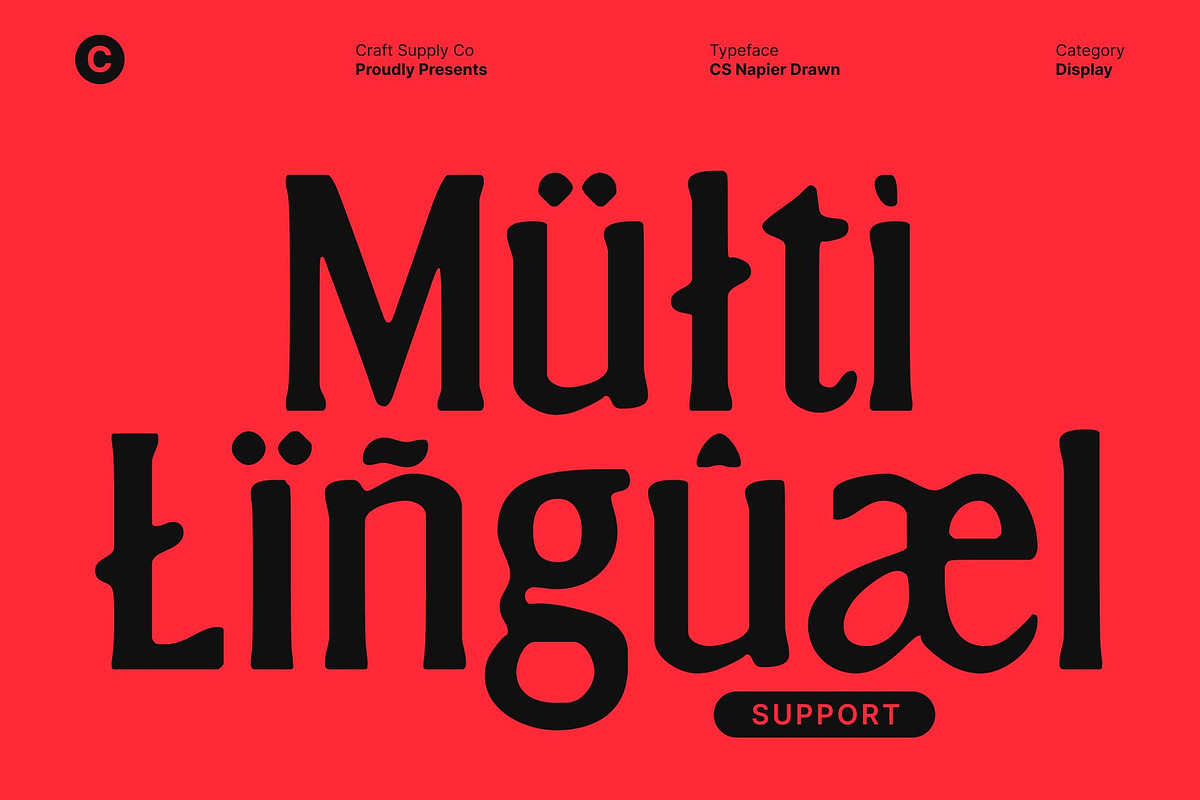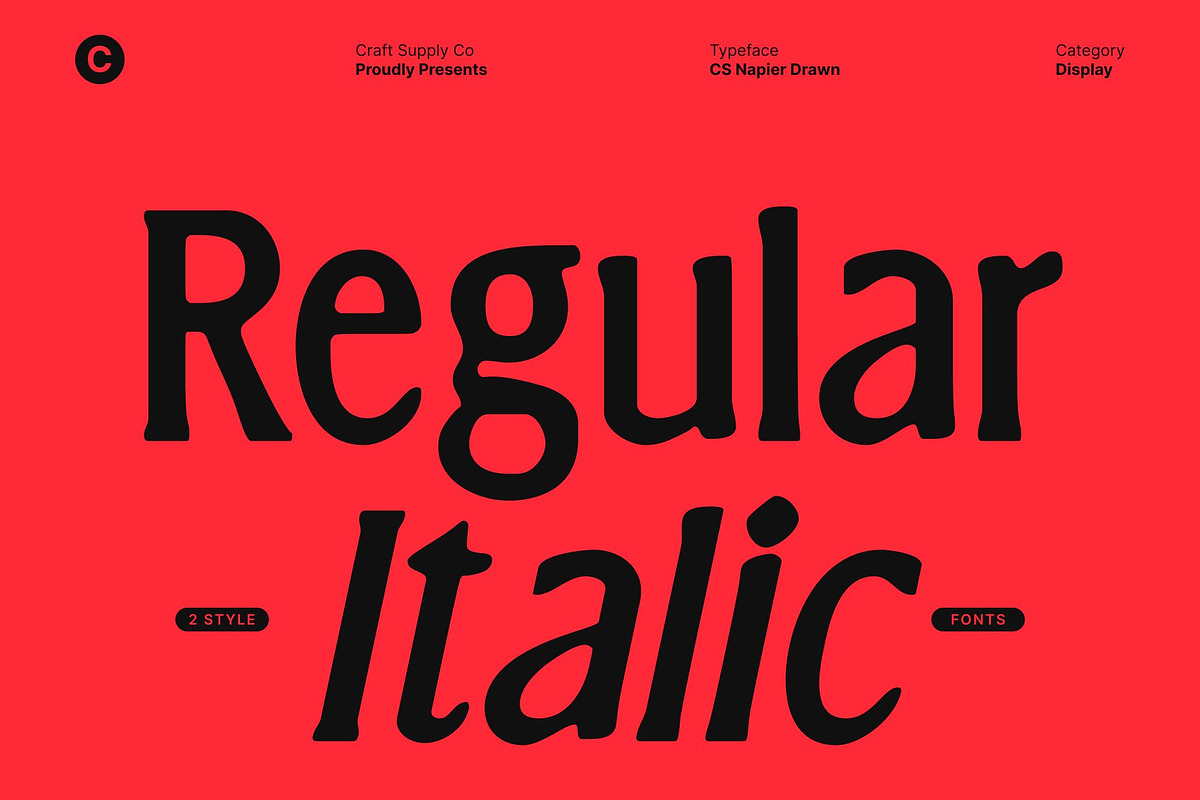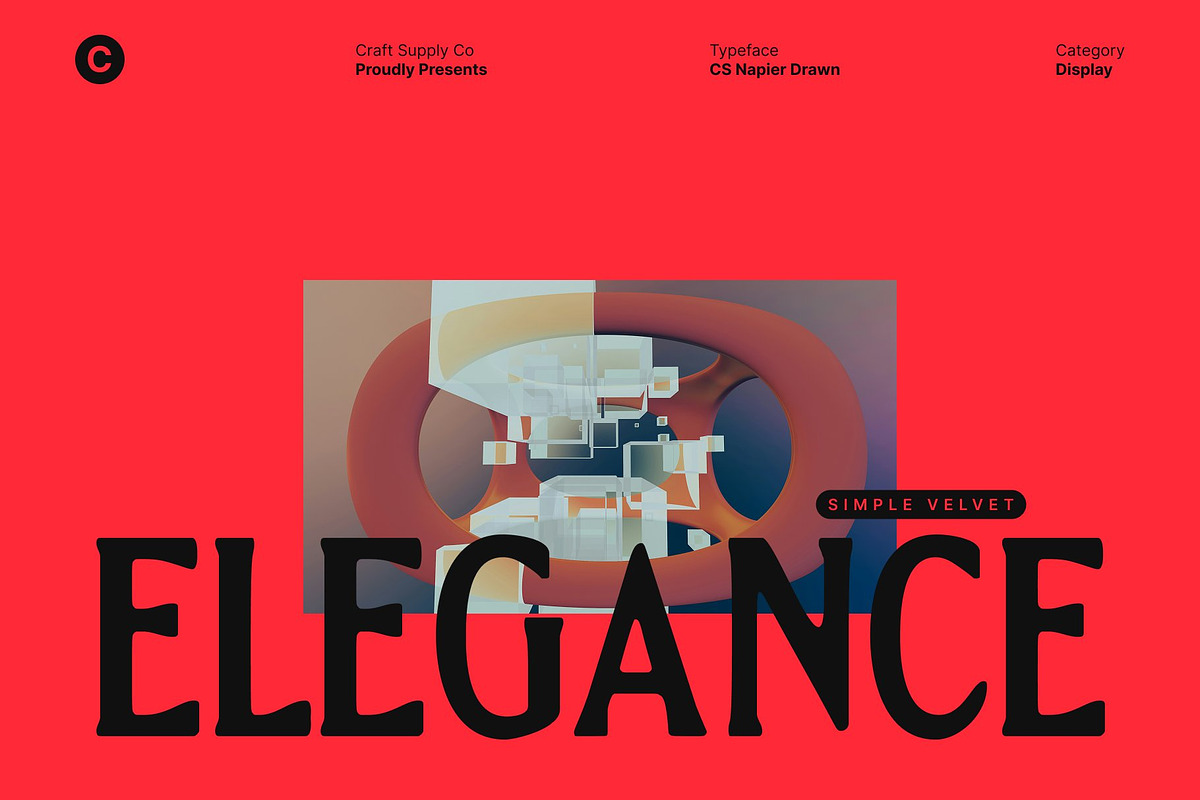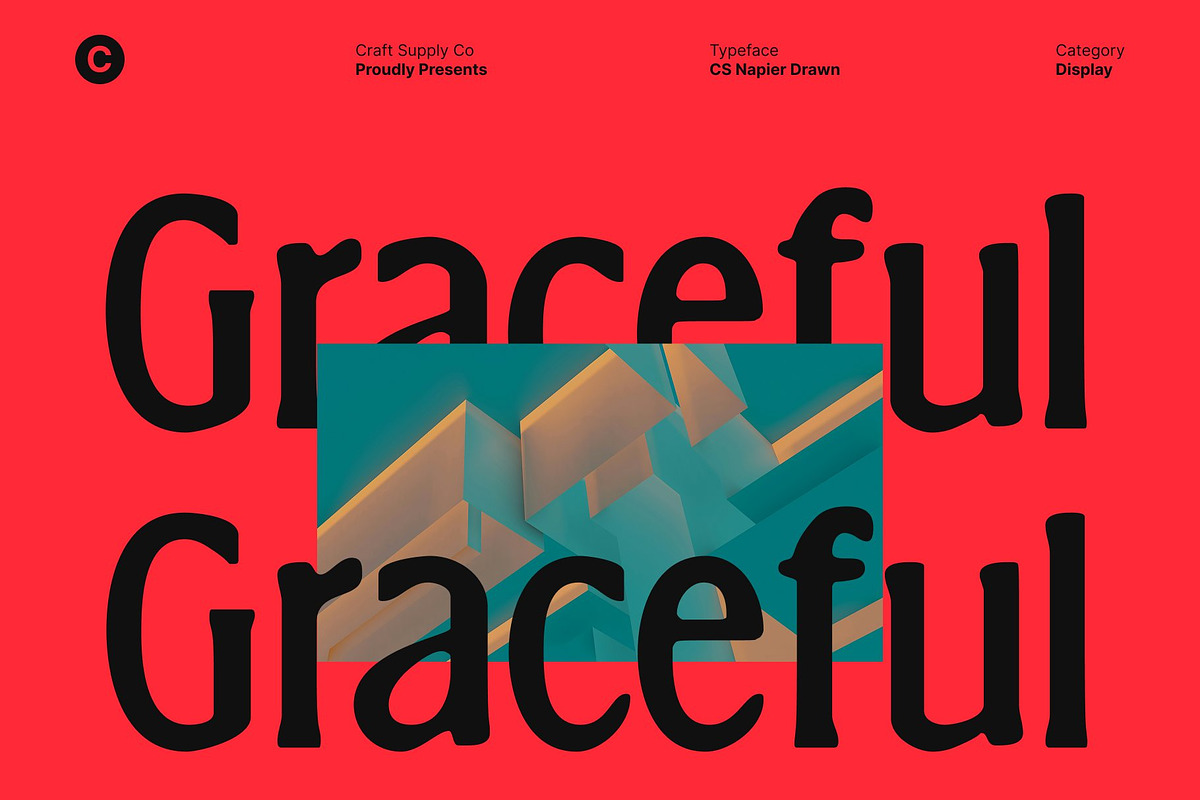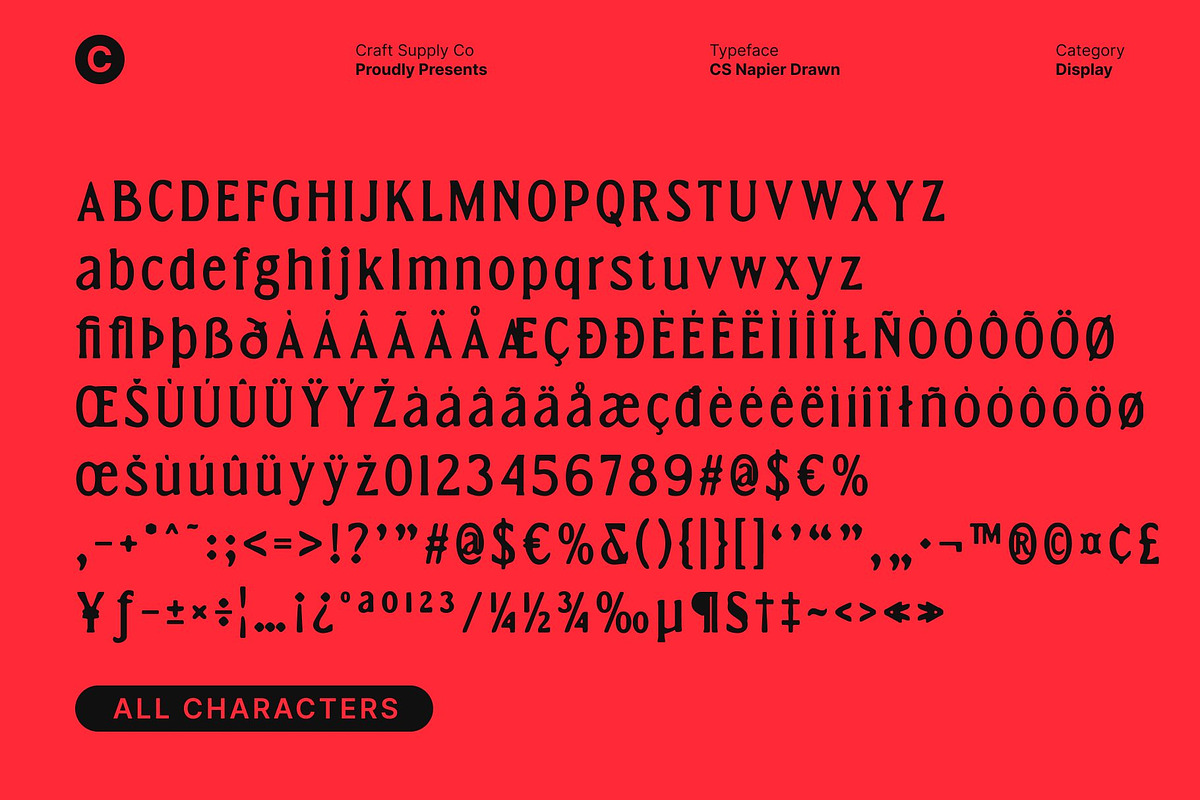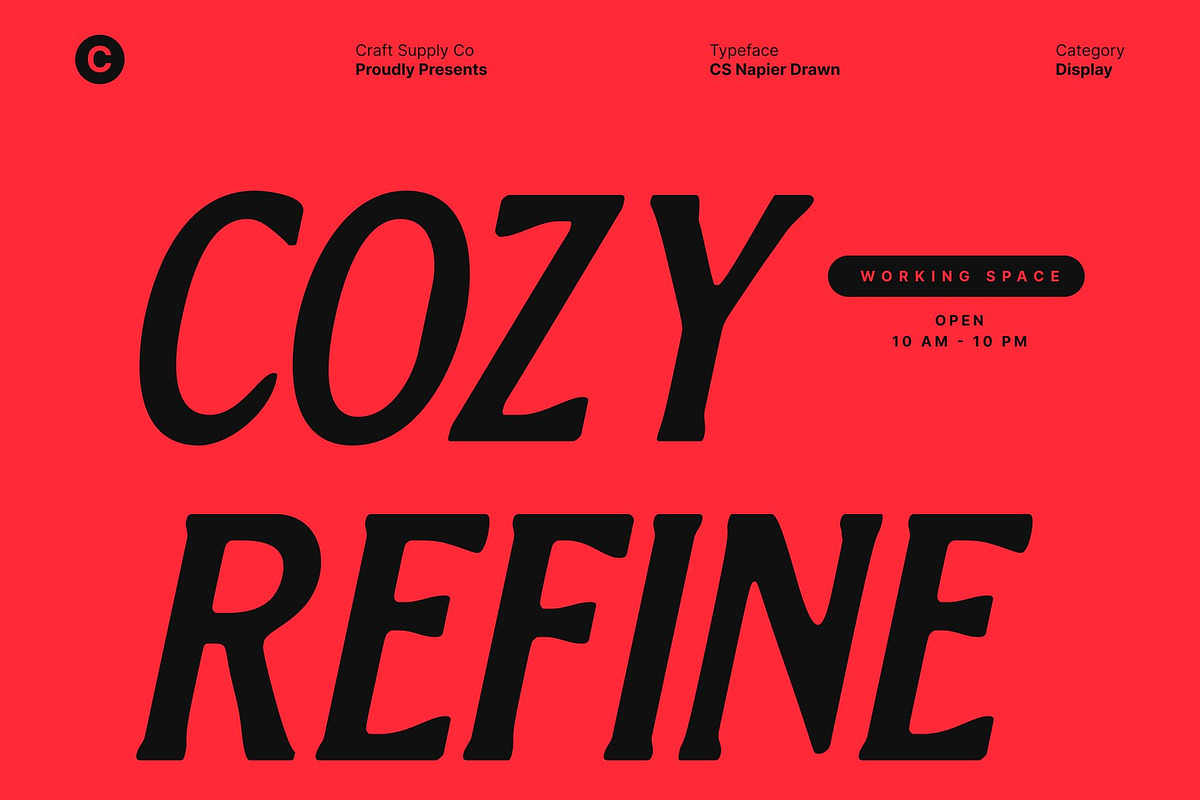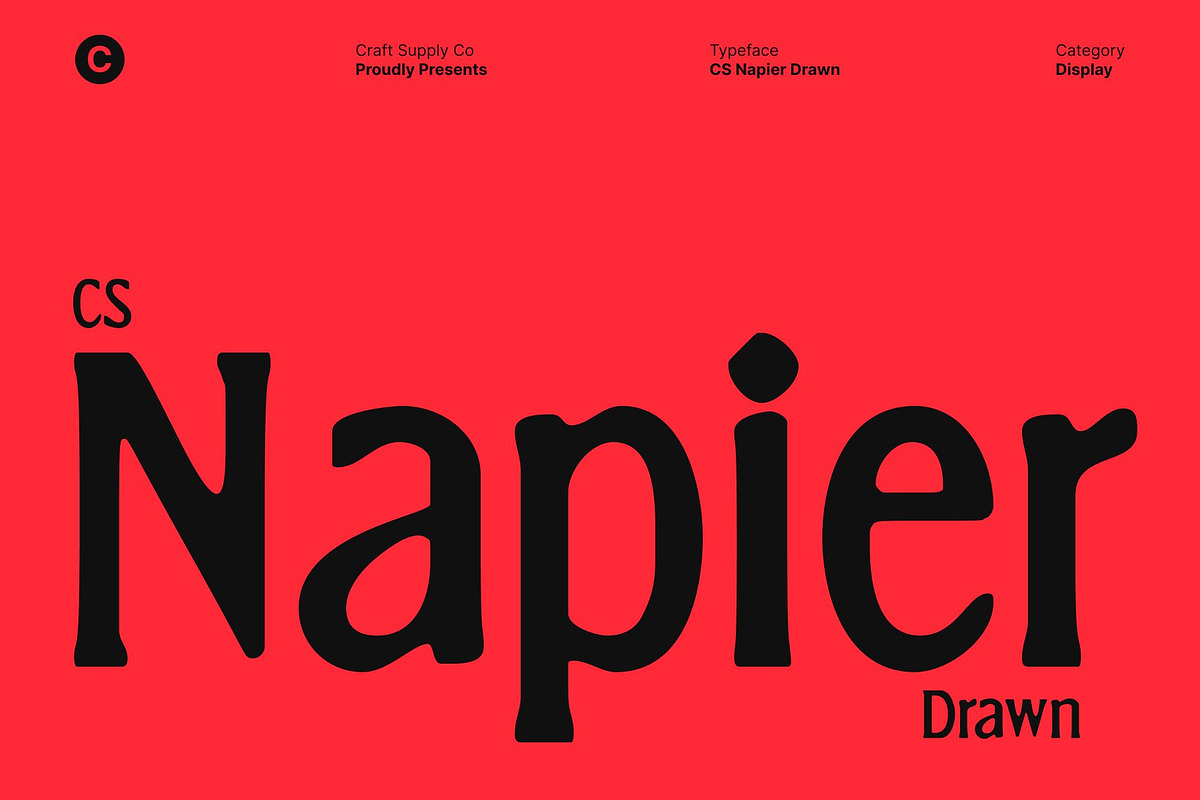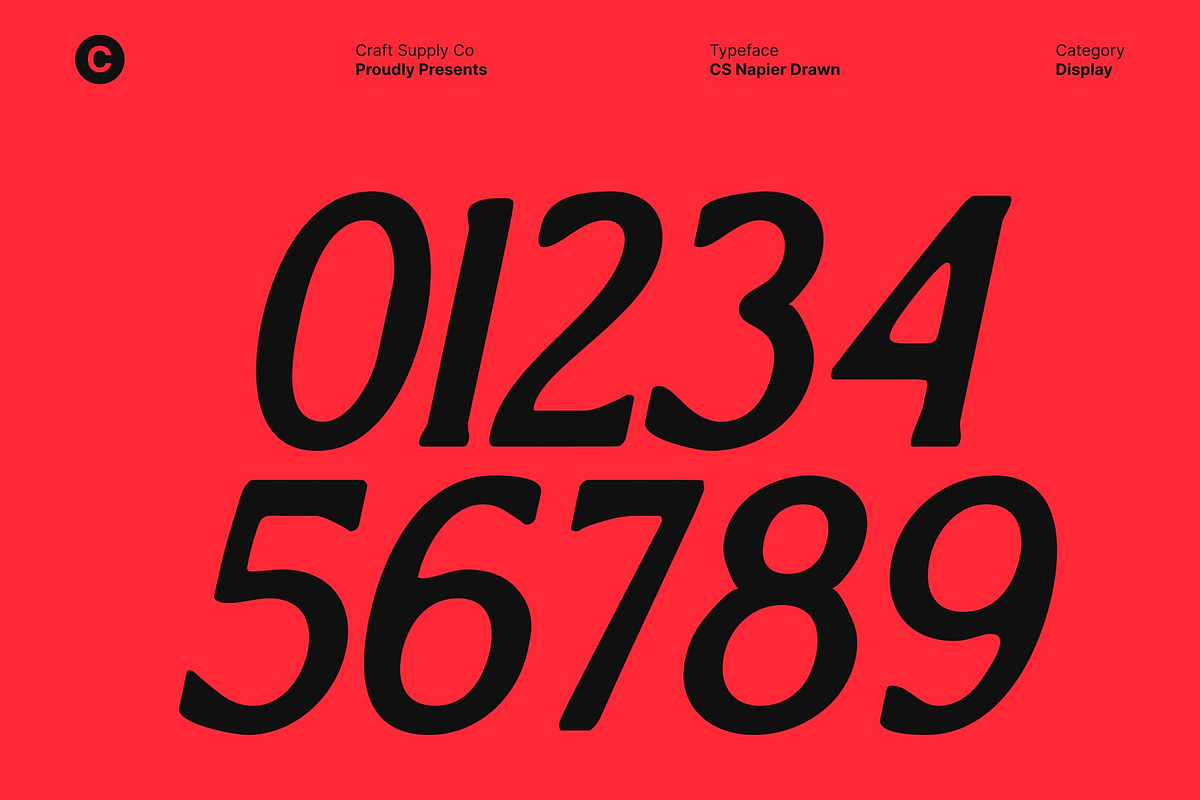
CS Napier Drawn
CS Napier Drawn – Modern Serif with Artistic Sophistication
Clean Slender Lines for Refined Clarity This is a modern serif font crafted with clean, slender lines that project sophistication and professionalism. Its balanced proportions and precise structure create a polished visual tone, making the typeface feel confident, elegant, and highly refined. The slim strokes enhance readability while maintaining a graceful, contemporary presence suitable for premium design work.
Timeless Foundation with Contemporary Appeal Built on a timeless serif foundation, blends classic typographic principles with a modern sensibility. The font’s minimalist construction ensures versatility across both print and digital applications. Its understated elegance allows it to adapt effortlessly to editorial layouts, brand identities, and high-end visual communication without overpowering the overall design.
Drawn Texture for Soft Expressiveness What truly distinguishes this font is its subtle drawn texture. This handcrafted detail introduces warmth, personality, and expressive character to the otherwise clean serif forms. The drawn effect softens the sharpness of the lines, creating an organic, human touch that feels artistic yet controlled. It adds depth and uniqueness while preserving a refined aesthetic.
Ideal for Branding, Posters, and Editorial Design This font is perfectly suited for branding, posters, editorials, magazines, book covers, and sophisticated promotional materials. It balances timeless design with artistic expression, making it ideal for projects that demand elegance, clarity, and creative individuality. This font delivers a professional voice with a distinctive handcrafted soul, elevating visual storytelling with subtle artistry.
- CS Napier Drawn Regular
- CS Napier Drawn Italic